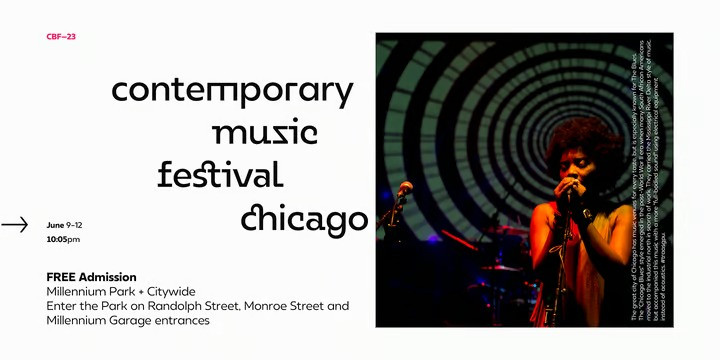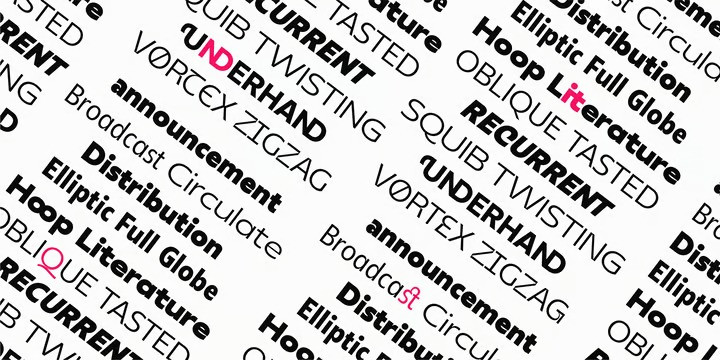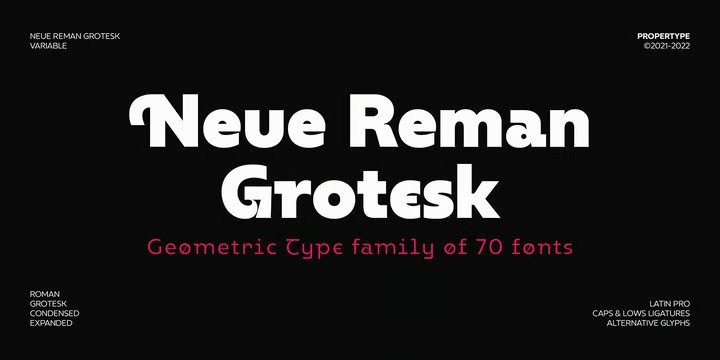
Neue Reman Grotesk Font
Neue Reman Gt Sans Serif Font Family, contains 750 glyphs, a Latin Pro Fonts. This is the second version of Neue Reman Family. Complete with Stylistic Alternates, Stylistic Set, Caps Swashes Letter, Standard Ligatures, Discretionary Ligatures, Tabular Figures, Proportional Figures, Superscript, Subscript, Scientific Inferiors, Fractions, Ordinals, Arrows and a variety of figures and fractions. Neue Reman typeface suitable to use in multipurpose projects such as on websites, systems, printing, embedding, servers, screens, display, digital-ads, branding, logos, titles, headlines, teks, and everything else.